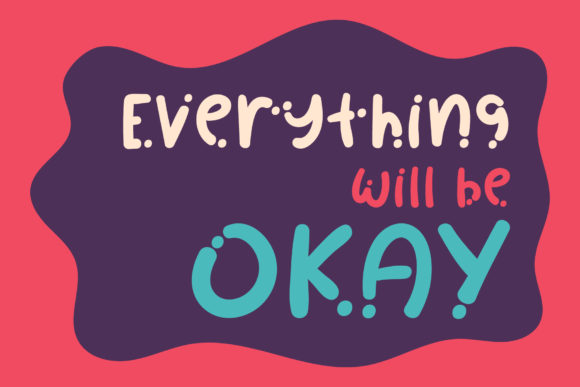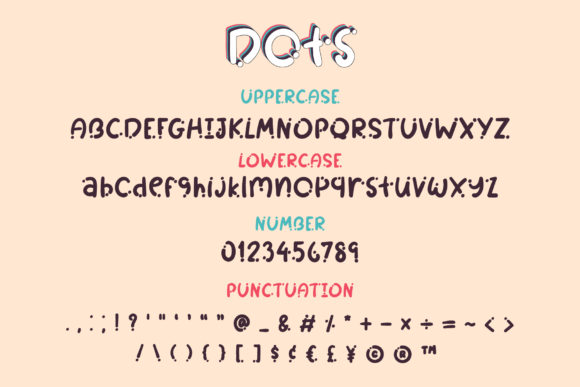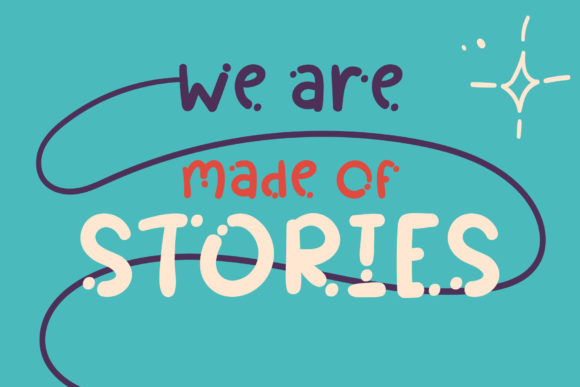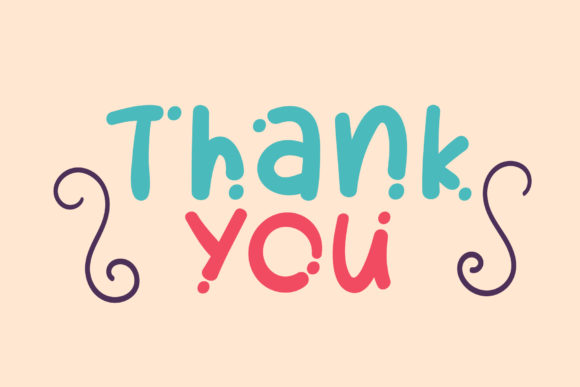
Discover the Elegance of Dots Font: Elevate Your Designs with Precision and Style
In the vast universe of typography, certain fonts stand out for their unique ability to transform and elevate design projects. Among these, the Dots Font emerges as a beacon of elegance and versatility, meticulously crafted to capture the hearts of designers and crafters alike. This exquisite decorative font is not just a typeface; it’s a tool that unlocks a myriad of creative possibilities, making it an indispensable asset in your design arsenal.
The Essence of Dots Font
Dots Font is characterized by its outstanding writing technique, which sets it apart from more conventional typefaces. Its design is rooted in simplicity yet exudes a sophisticated charm that can enhance a wide range of design projects. Whether you’re working on blog posts, advertisements, invitations, greeting cards, planners, photo albums, or decorations, Dots Font integrates seamlessly, adding a touch of elegance and finesse.
One of the most compelling attributes of Dots Font is its incredible versatility. It’s a font that defies the one-trick-pony syndrome, instead offering a broad spectrum of applications. Here are a few ways you can incorporate Dots Font into your projects:
- Blog Posts: Elevate your blog’s aesthetic with Dots Font, making your content more engaging and visually appealing.
- Ads: Grab attention with stylish and sophisticated text that stands out in the crowded digital marketplace.
- Invitations: Create memorable invitations for special occasions, imbuing them with a personal and elegant touch.
- Greeting Cards: Add a layer of sophistication to your greeting cards, making them perfect for any occasion.
- Planners and Photo Albums: Infuse a sense of style and coherence into your planners and photo albums, making them cherished keepsakes.
- Decorations: Use Dots Font in your digital or print decorations to add a refined and artistic element.
Why Dots Font Stands Out
In a sea of fonts, Dots Font manages to stand out for several reasons:
- Unique Aesthetic: Its decorative style is both modern and timeless, appealing to a wide range of design sensibilities.
- Ease of Use: Despite its intricate appearance, Dots Font is surprisingly easy to use, integrating smoothly into various design projects.
- Emotional Connection: The font has a way of evoking emotions, making it perfect for projects where you want to leave a lasting impression.
Tips for Maximizing Dots Font’s Potential
To truly harness the power of Dots Font, consider the following tips:
- Experiment with Sizes: Play around with different sizes to see how Dots Font can be used for both headings and body text.
- Mix and Match: Don’t be afraid to combine Dots Font with other typefaces for a unique and compelling design.
- Pay Attention to Color: The right color choice can dramatically enhance the impact of Dots Font in your designs.
| Font Name | Dots Font |
| Author | zikadoozz |
Dots Font is more than just a decorative typeface; it’s a design companion that can elevate your projects to new heights of elegance and sophistication. Its versatility, unique aesthetic, and ease of use make it an invaluable resource for designers and crafters looking to add a touch of class to their work. Whether you’re a seasoned professional or a hobbyist, Dots Font invites you to explore new creative horizons, making it a true favorite in the world of typography.